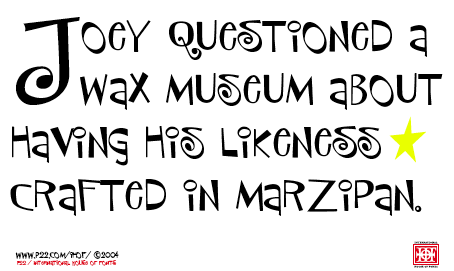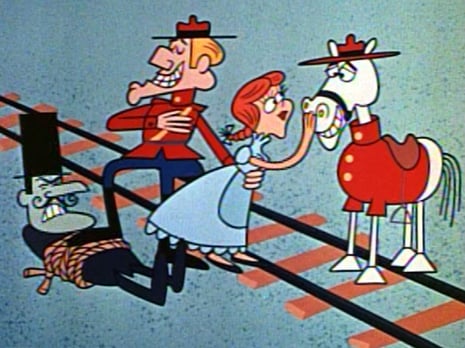
Font Fetish: Sniplash
Curses! This font has foiled me again!
P22 just released Sniplash, a new type family designed by Terry Wudenbachs.
If its name makes you think of cartoon villain Snidely Whiplash, that's no coincidence. Wudenbachs was inspired by 1960s and '70s cartoons and comics.
The mustache that inspired a typeface.